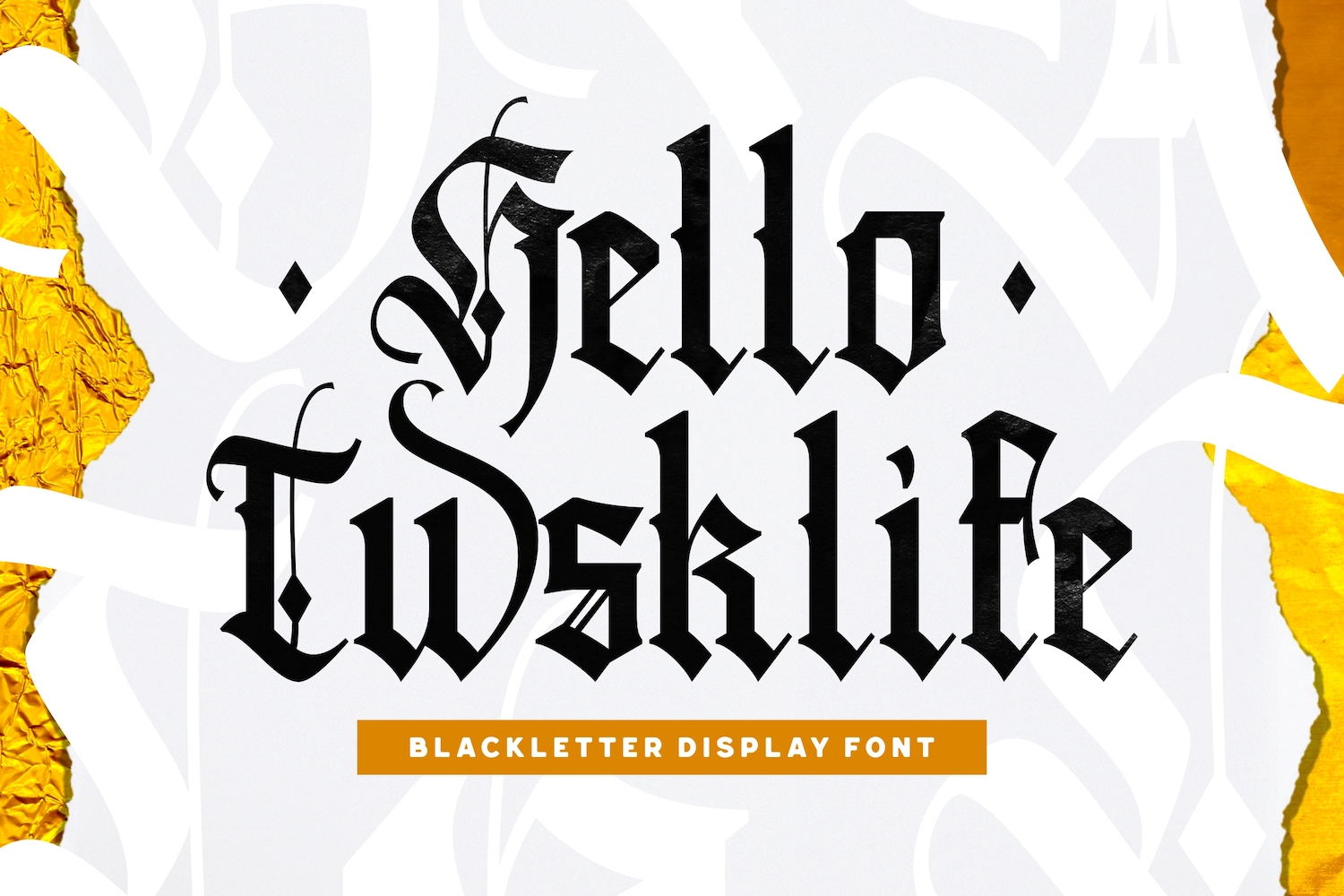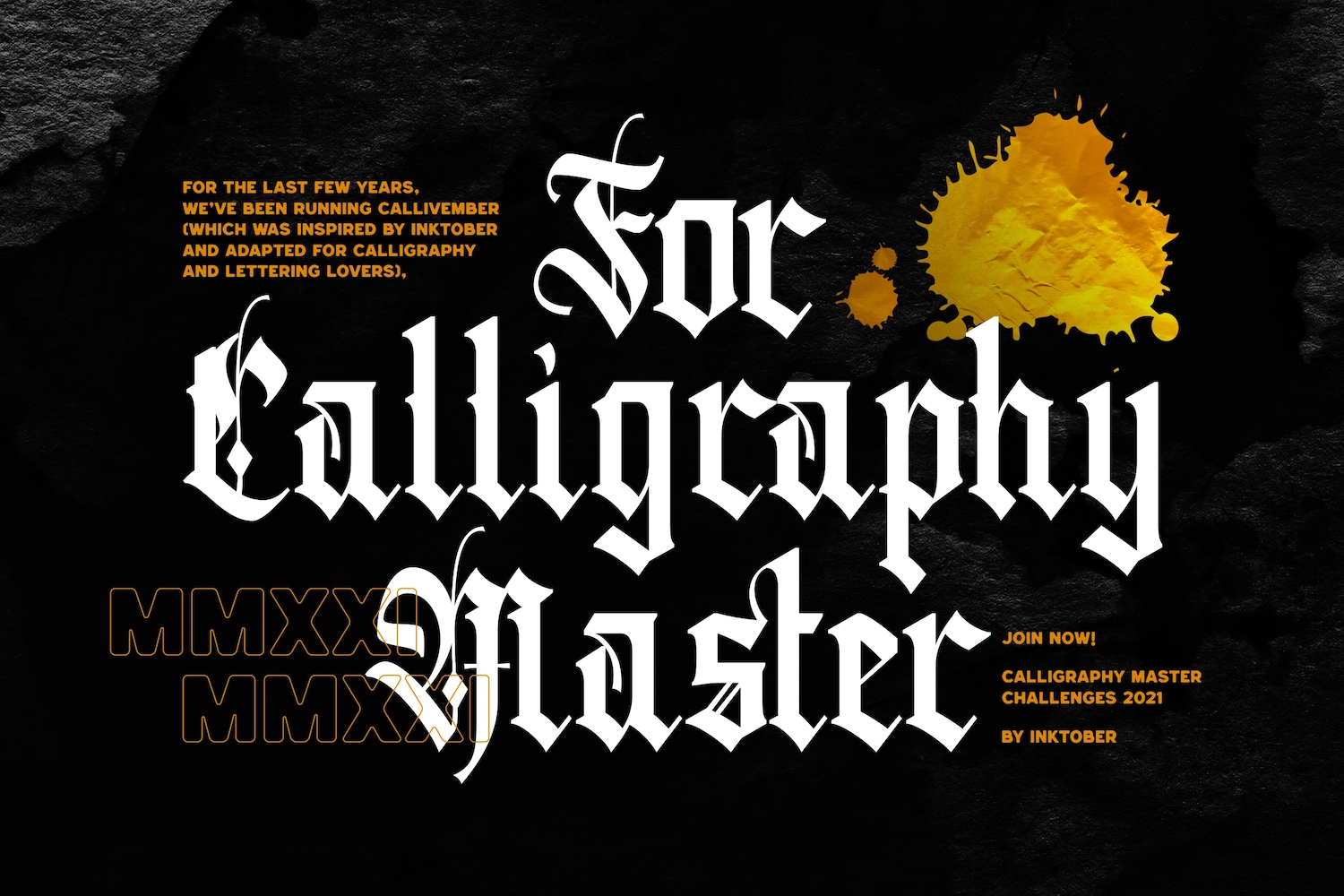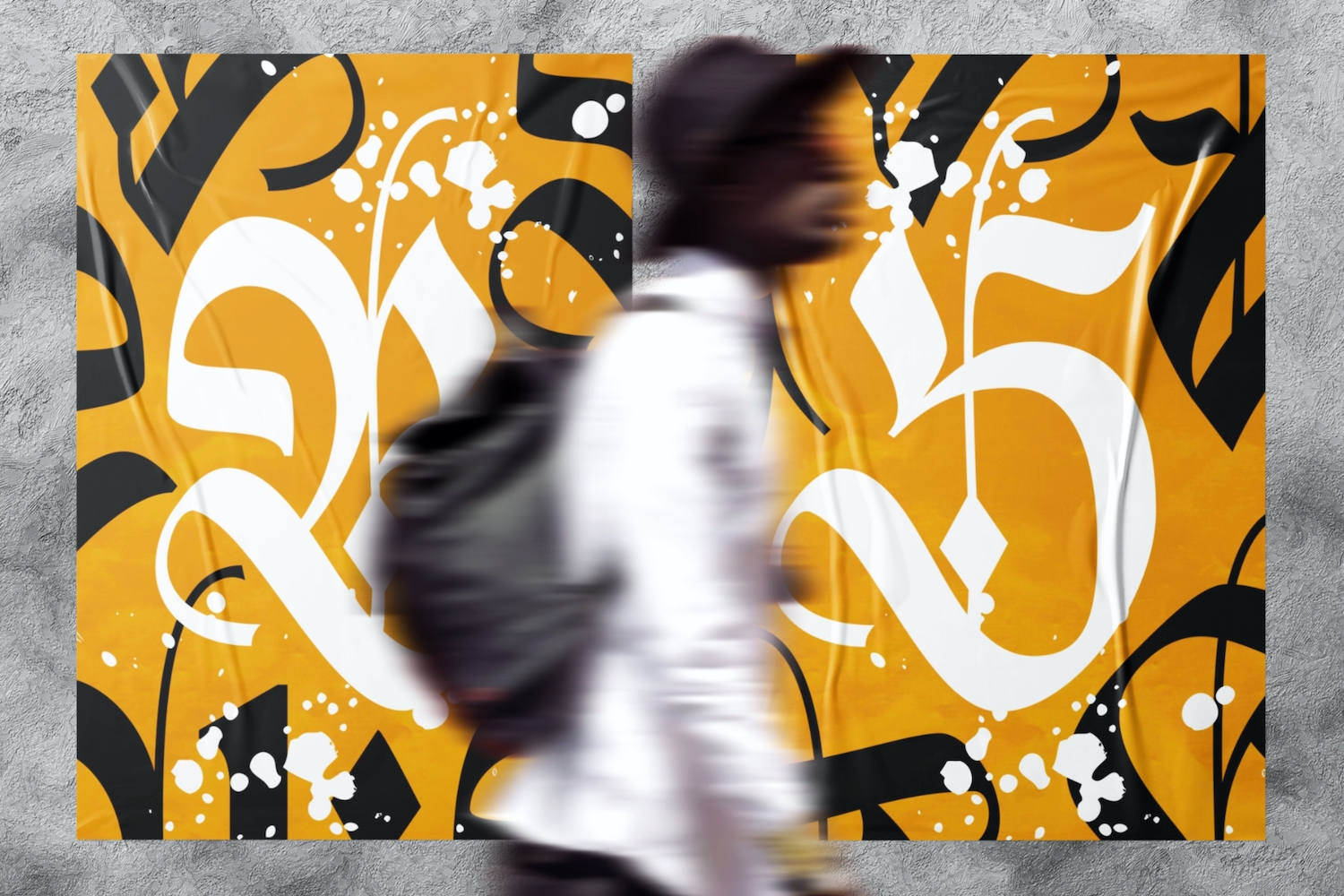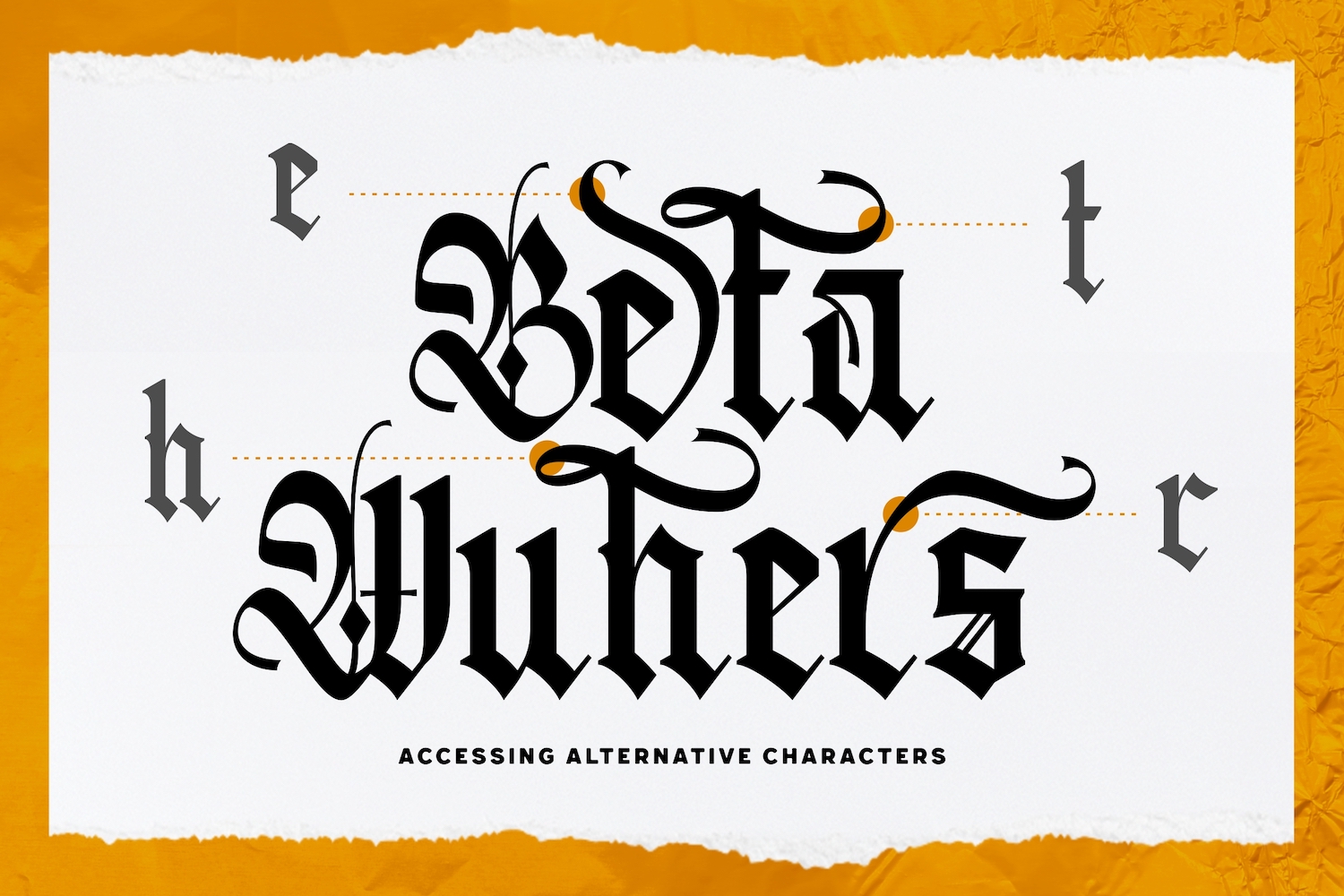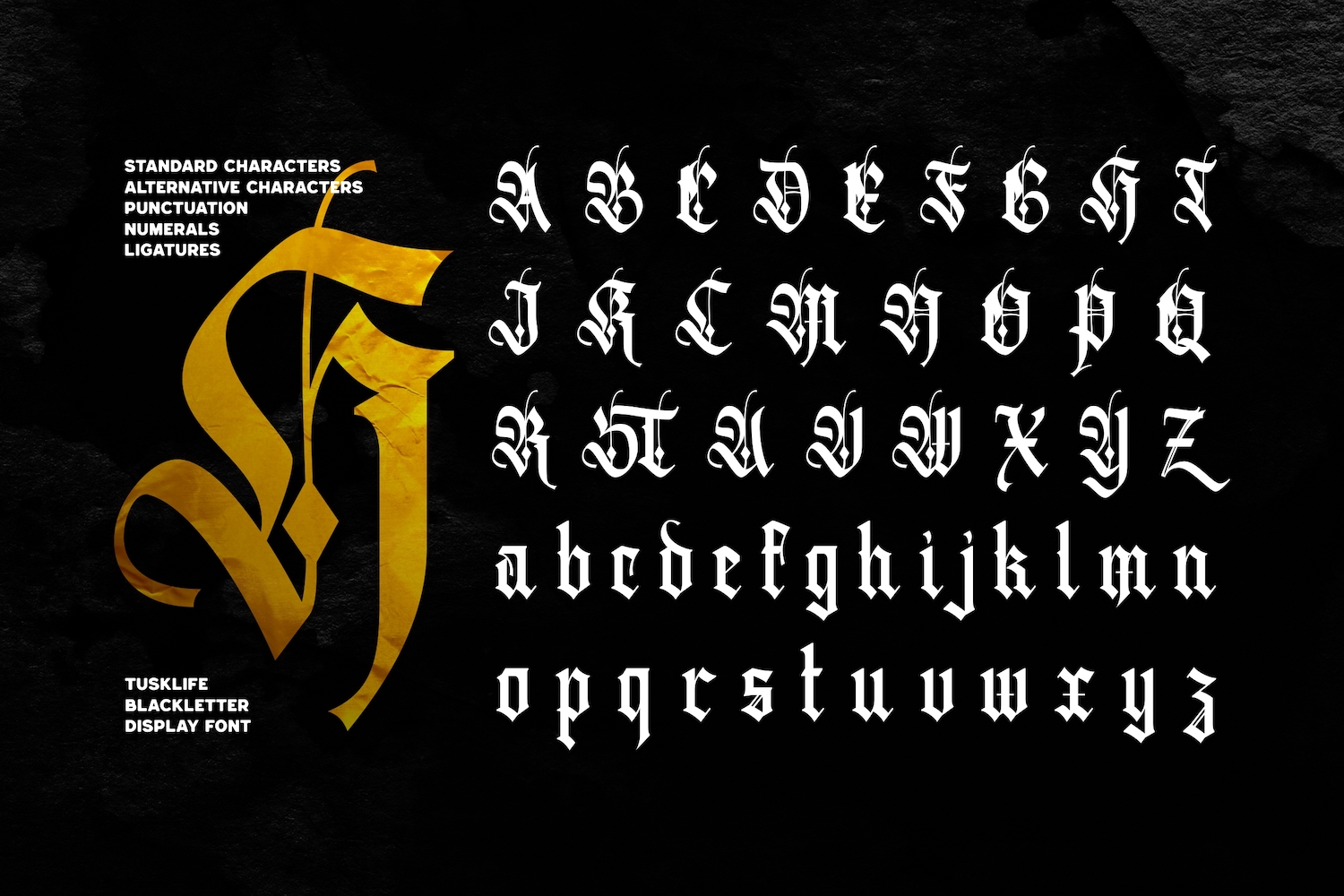
TuskLife is a striking blackletter display font designed to evoke the bold elegance of traditional calligraphy with a modern twist. With sharp angles, elaborate swashes, and an authoritative presence, this typeface is perfect for editorial layouts, gothic branding, and vintage posters that demand attention. It features uppercase and lowercase letters, numbers, punctuation, and a variety of alternative characters and ligatures to enhance typographic creativity.
Whether you’re crafting a tattoo design, streetwear label, or music-related visuals, TuskLife delivers a timeless gothic aesthetic with high adaptability. The decorative nature of the strokes and its high contrast style make it ideal for headlines, logos, or any display usage where impact and artistry go hand-in-hand.
Tusklife